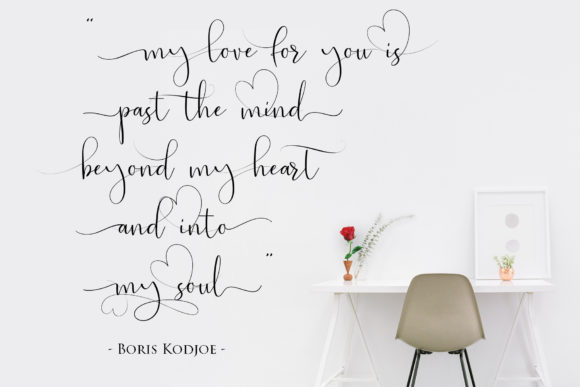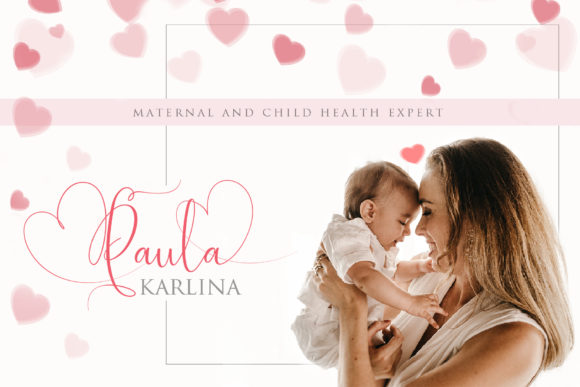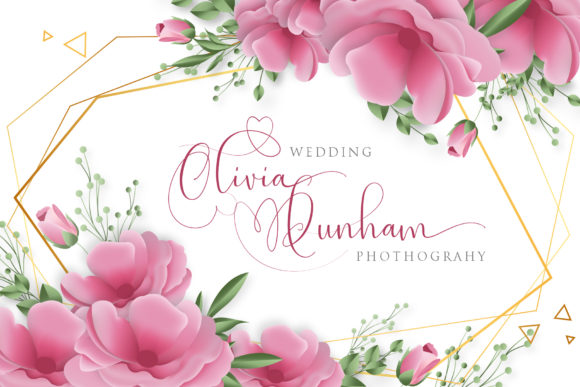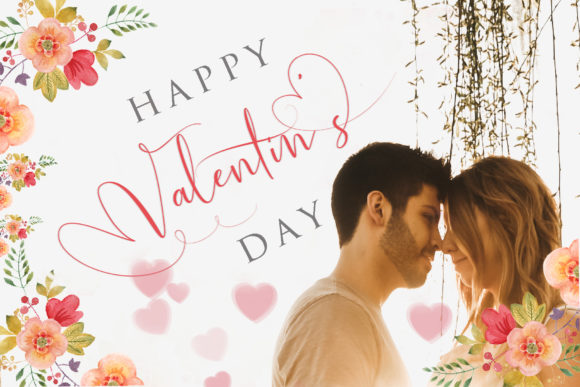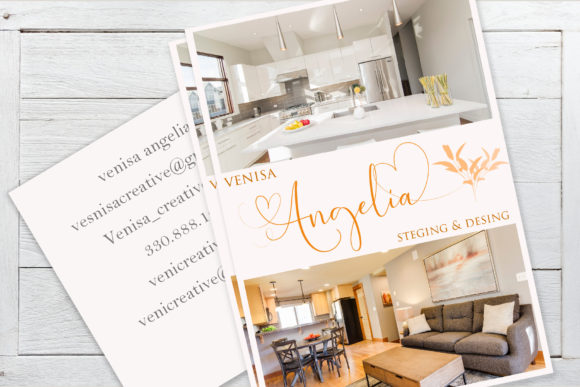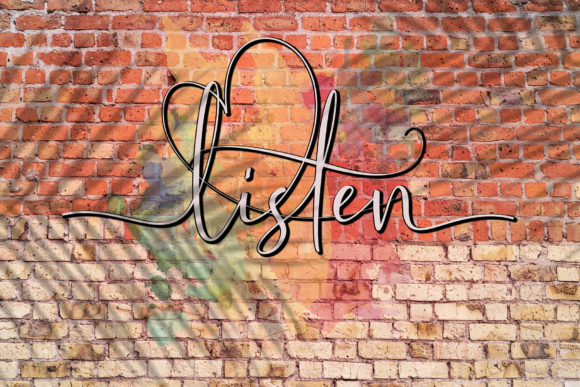
Fall in Love with Bestlove: The Ultimate Handwritten Font for Designers and Crafters
Are you tired of using the same old fonts in your design projects? Do you want to add a touch of elegance and whimsy to your creations? Look no further than Bestlove, a one-of-a-kind handwritten font that’s sure to make your designs stand out. In this article, we’ll take a closer look at what makes Bestlove so special and why it’s a must-have for designers and crafters alike.
Handwritten fonts have a way of adding a personal touch to any design project. They evoke a sense of warmth, friendliness, and approachability that’s hard to replicate with more formal fonts. But not all handwritten fonts are created equal. Some can look messy or uneven, while others may be too perfect and lack character. Bestlove strikes the perfect balance between elegance and whimsy, making it the perfect choice for a wide range of design projects.
What Makes Bestlove So Special?
So, what sets Bestlove apart from other handwritten fonts? Here are just a few of its standout features:
- Unique Character Set: Bestlove features a unique character set that’s full of personality. Each letter is carefully crafted to be distinctive and eye-catching, making it perfect for designs that need a little extra flair.
- Elegant and Whimsical: Bestlove has a beautiful, flowing script that’s both elegant and whimsical. It’s perfect for designs that need a touch of sophistication and charm.
- Highly Versatile: Bestlove is incredibly versatile, making it suitable for a wide range of design projects. Use it for branding, packaging, social media graphics, or anything else that needs a personal touch.
- Easy to Read: Despite its elegant and cursive nature, Bestlove is surprisingly easy to read. This makes it perfect for designs that need to convey a message or tell a story.
Bestlove is a font that’s been designed with designers and crafters in mind. Whether you’re creating digital products or physical goods, Bestlove is the perfect choice for adding a personal touch to your designs. Here are just a few ways you can use Bestlove:
- Branding and Packaging: Use Bestlove to create beautiful branding and packaging that stands out from the crowd.
- Social Media Graphics: Add a touch of elegance and whimsy to your social media graphics with Bestlove.
- Stationery and Invitations: Use Bestlove to create beautiful stationery and invitations that are perfect for weddings, parties, and other special occasions.
- Crafting and Scrapbooking: Bestlove is also perfect for crafters and scrapbookers who want to add a personal touch to their projects.
Tips for Using Bestlove
Here are a few tips for getting the most out of Bestlove:
- Experiment with Different Sizes: Bestlove looks great in a variety of sizes, so don’t be afraid to experiment and find the perfect size for your design.
- Pair it with Other Fonts: Bestlove pairs beautifully with other fonts, so try combining it with a sans-serif font for a contrasting look.
- Use it for Headings and Titles: Bestlove is perfect for headings and titles, where its elegant and whimsical nature can really shine.
| Author | Sulthan Studio |
If you’re looking for a font that will add a touch of elegance and whimsy to your design projects, look no further than Bestlove. This one-of-a-kind handwritten font is perfect for designers and crafters who want to create beautiful, standout designs. With its unique character set, elegant and whimsical nature, and high versatility, Bestlove is a must-have for anyone who wants to take their designs to the next level.